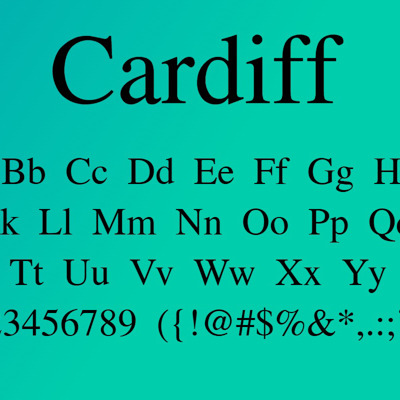
Titling Fonts
Oxford
Cardiff
Simple yet elegant
Milford
Queens Park
Space and Astronomy
Great for headlines
Orgreave
Good for headlines
Lifestyle M54